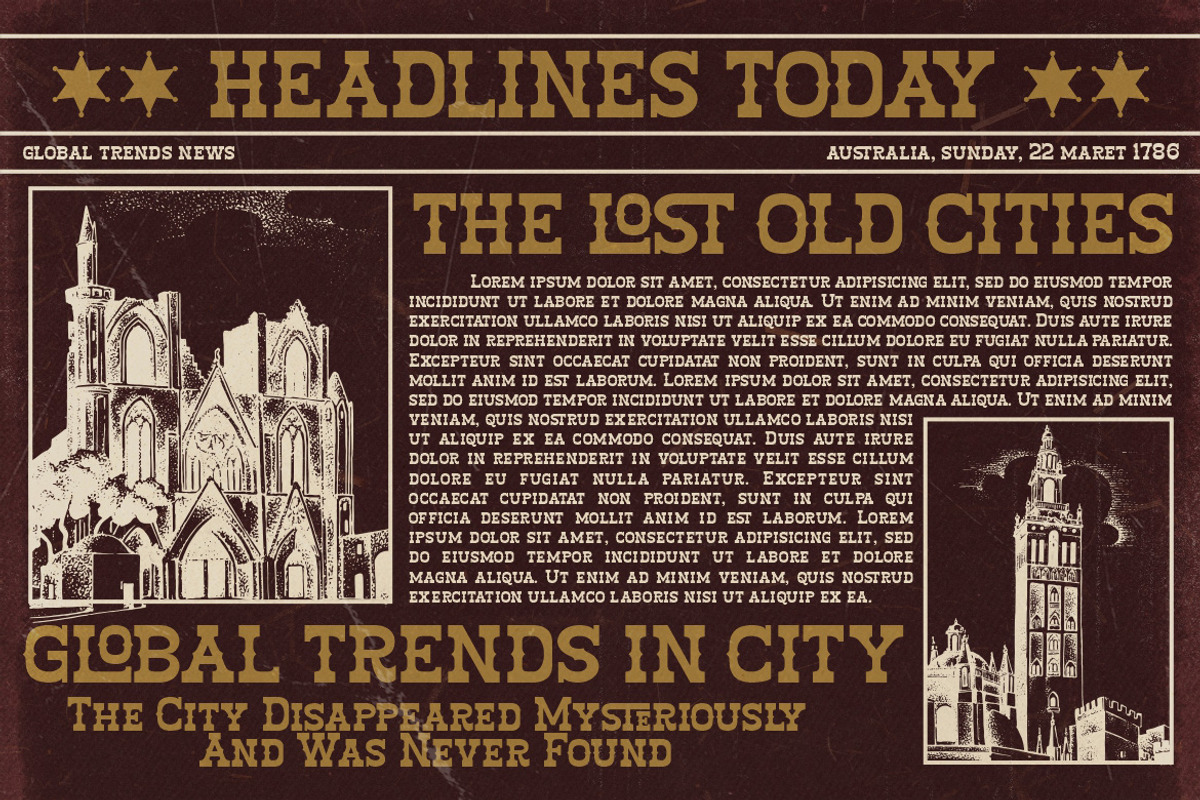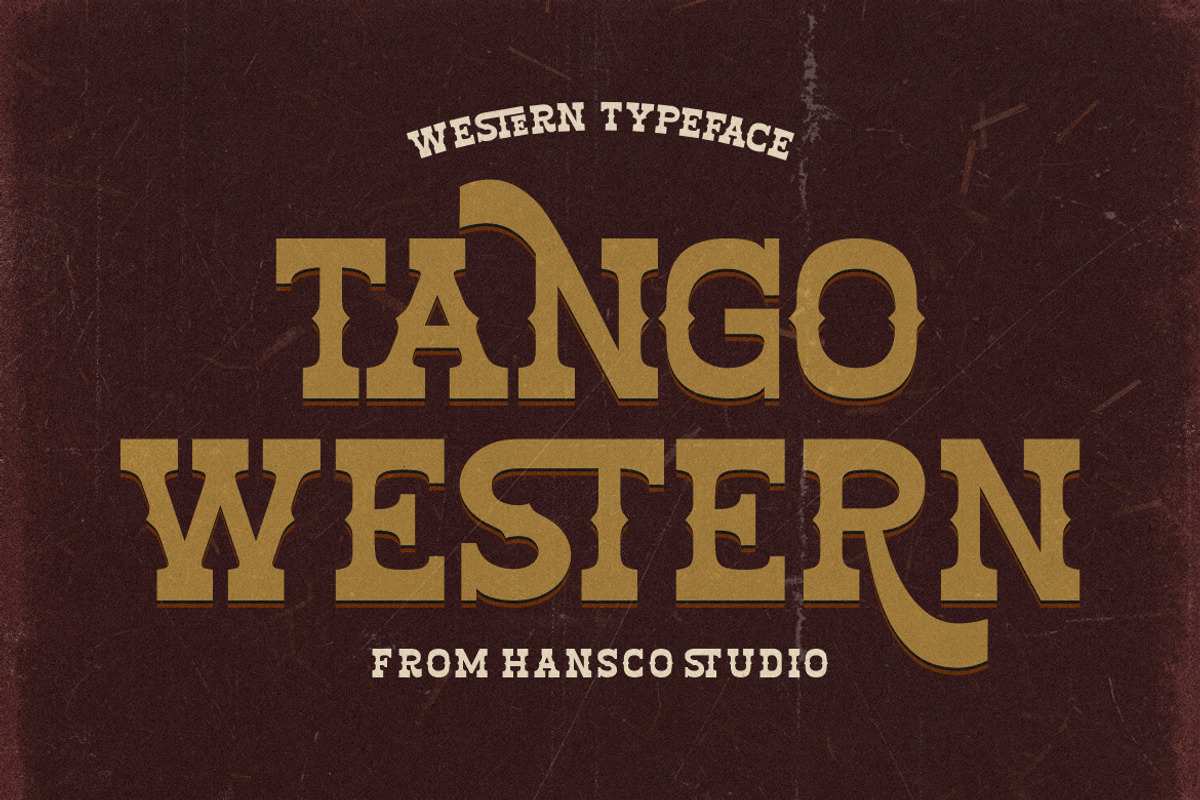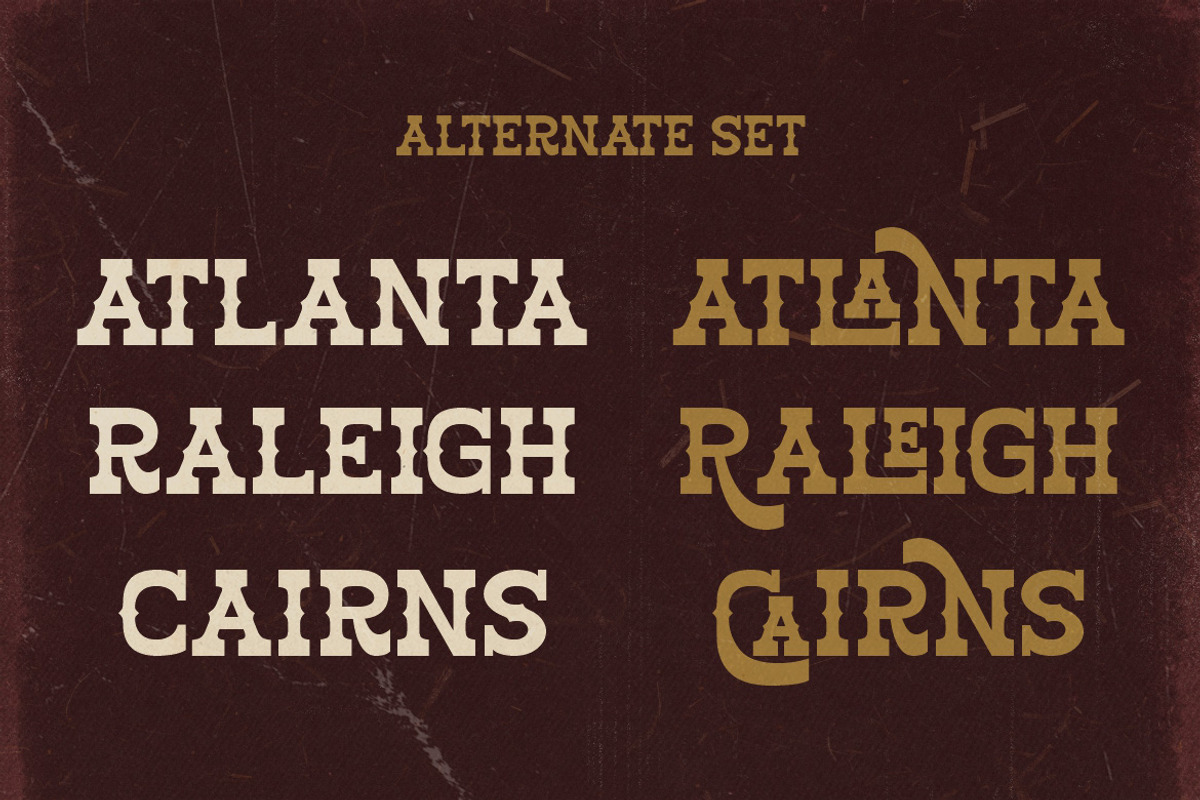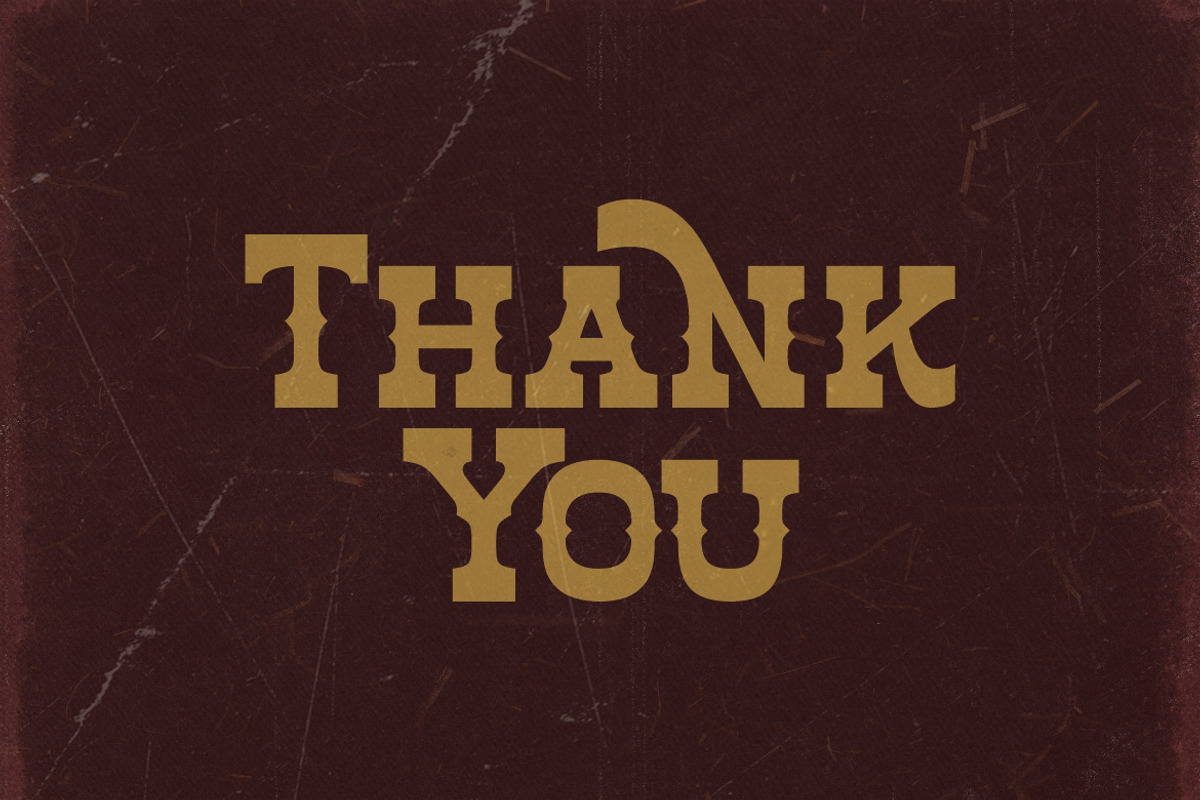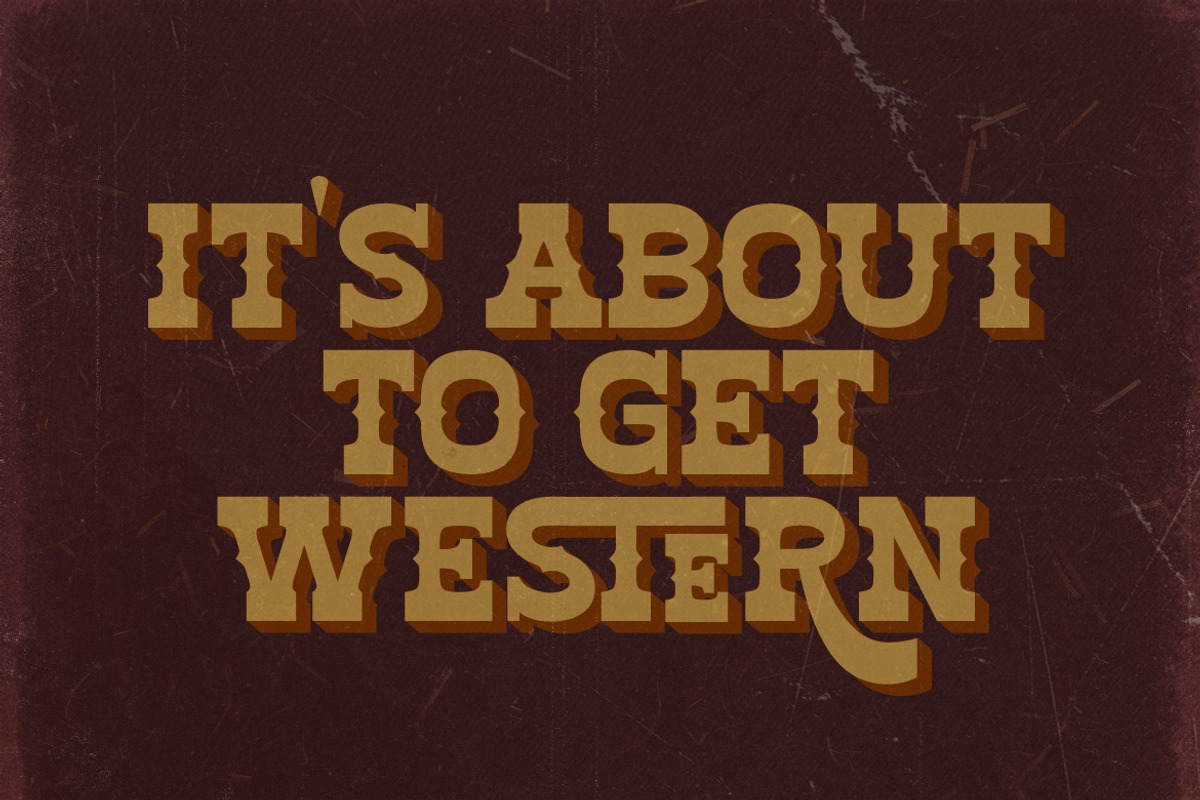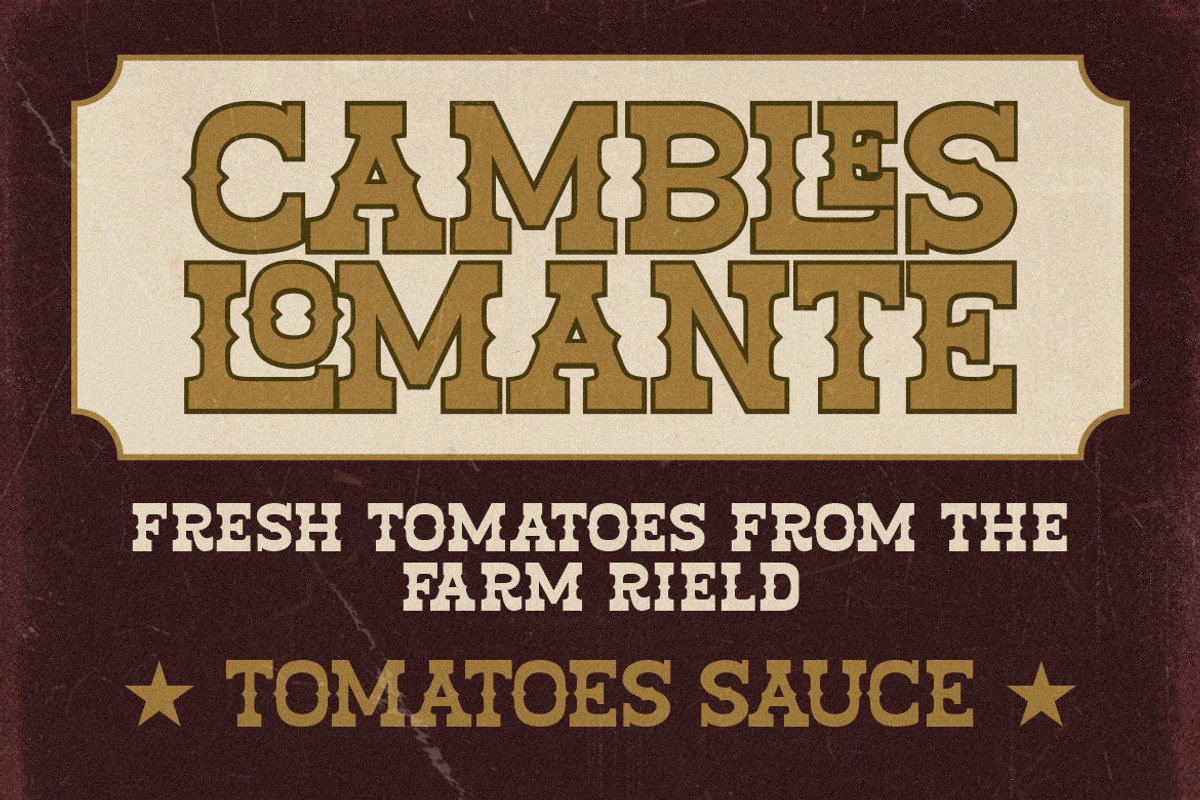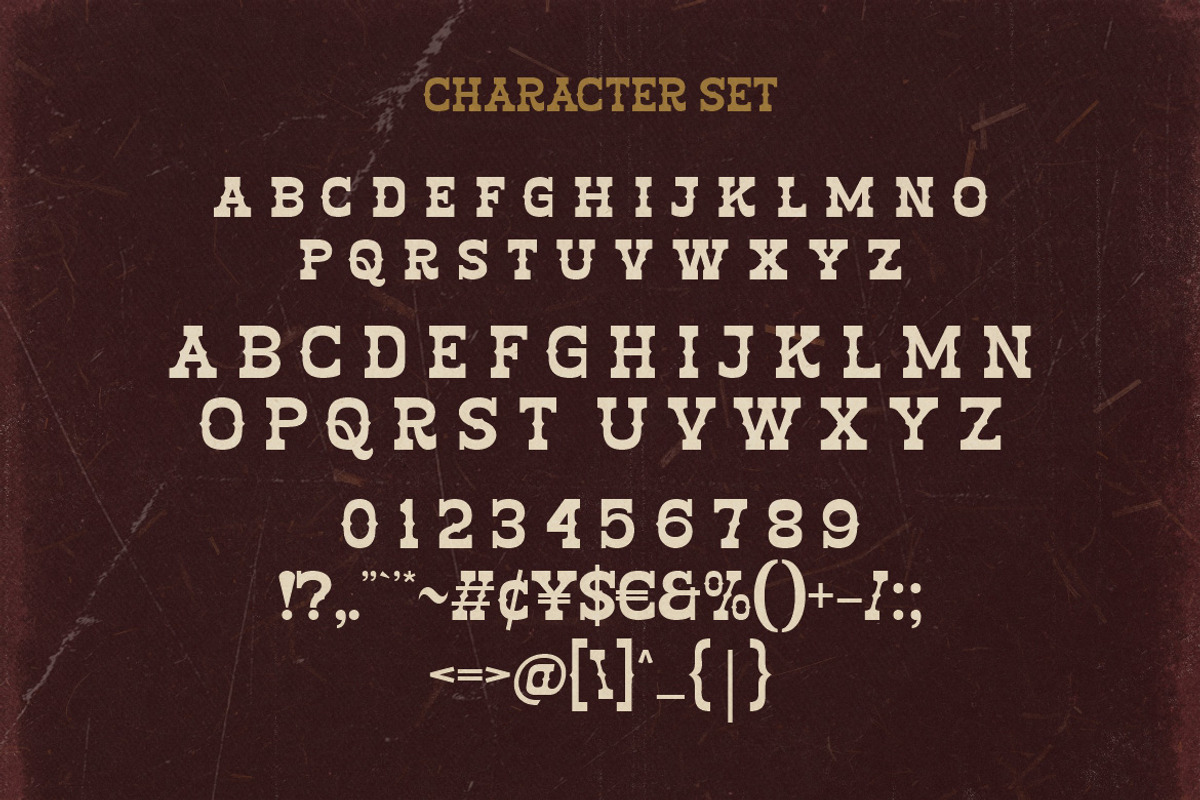
Tango Western Font – Retro Slab
Tango Western is a slab type font with sharp characters on each side. Use this display slab font to add that special retro vintage touch to any design idea you can think of!. Very suitable for logotype, Stickers, Packaging design, Cricut Project, headlines, brand identity, t shirt or apparel industry, posters, magazines, books, YouTube, Instagram, websites, or any of your creative design projects.